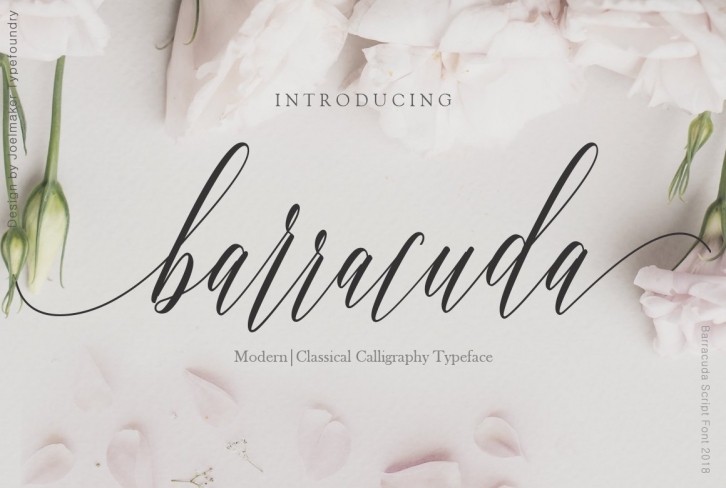
BARRACUDA NEW FONT SCRIPT
Barracuda Script is a calligraphy manuscript, handwritten modern and clasik, so soft, perfect for your next design, such as logos, quotes, printed quotes, invitations, signature, cards name, product packaging, brand, template mock up, headers and anything else about your imagination.
Barracuda ScriptSwash, as well as ligatures in Photoshop, Adobe Illustrator, Adobe InDesign or through a panel of glyphs such as Adobe Illustrator, Photoshop CC, Let's switch from the reguler character into character alternative to get the text with the layout of your dreams. Barracuda Script also includes glyphs, punctuation, numbers, and multilingual.